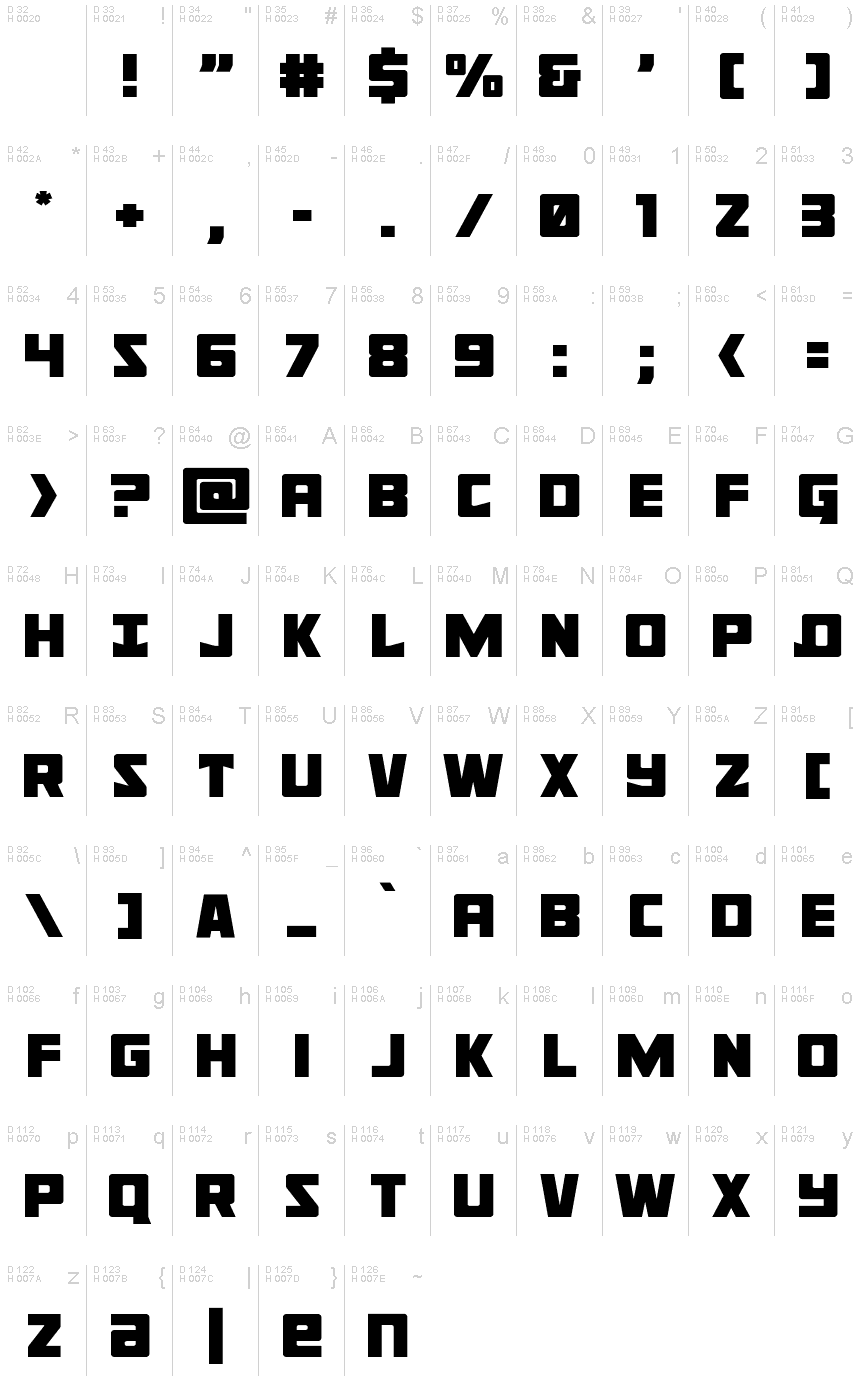
Tower of Silence Expanded
Tower of Silence Expanded stands as a monumental testament to the innovative spirit of Iconian Fonts.
In the realm of display typefaces, this member of the Tower of Silence family commands attention with its extra-bold, techno style and expanded width. Its assertive lines and futuristic curves lend an air of authority and sophistication to any creative endeavor. Whether crafting eye-catching headlines, immersive gaming interfaces, or dynamic branding materials, designers will find in this font an ally for making a bold statement that resonates across digital landscapes.
Tower of Silence Expanded is not just a font—it's a beacon for those looking to push design boundaries and convey strength in their visual narratives.
In the realm of display typefaces, this member of the Tower of Silence family commands attention with its extra-bold, techno style and expanded width. Its assertive lines and futuristic curves lend an air of authority and sophistication to any creative endeavor. Whether crafting eye-catching headlines, immersive gaming interfaces, or dynamic branding materials, designers will find in this font an ally for making a bold statement that resonates across digital landscapes.
Tower of Silence Expanded is not just a font—it's a beacon for those looking to push design boundaries and convey strength in their visual narratives.